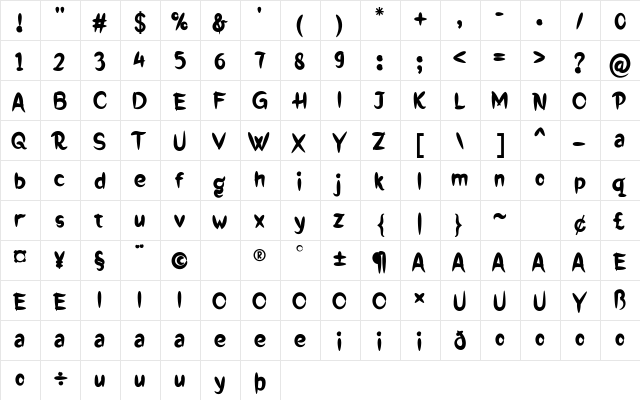
Jagiq Regular
Design Context for Jagiq Typeface
Jagiq is a composed and adaptable typeface that performs quietly and consistently across a wide range of design contexts.